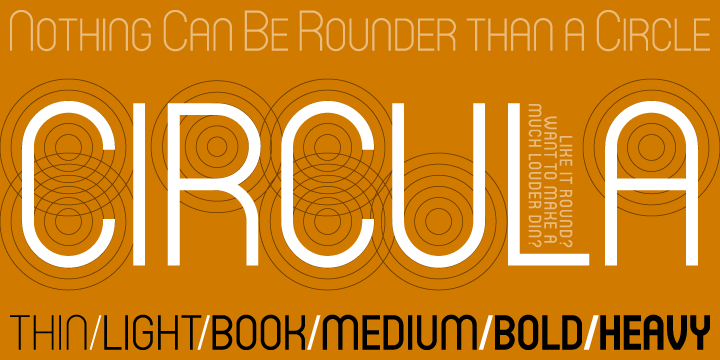
Font name: | Circula |
Author: | Paragraph |
Note by Paragraph | |
Circula™ is a simplified geometric display typeface based on circles. It contains capitals and small capitals only (no lower case), basic symbols, superior and inferior numbers and common fractions. It supports Eastern European, Baltic and Turkish character sets. |